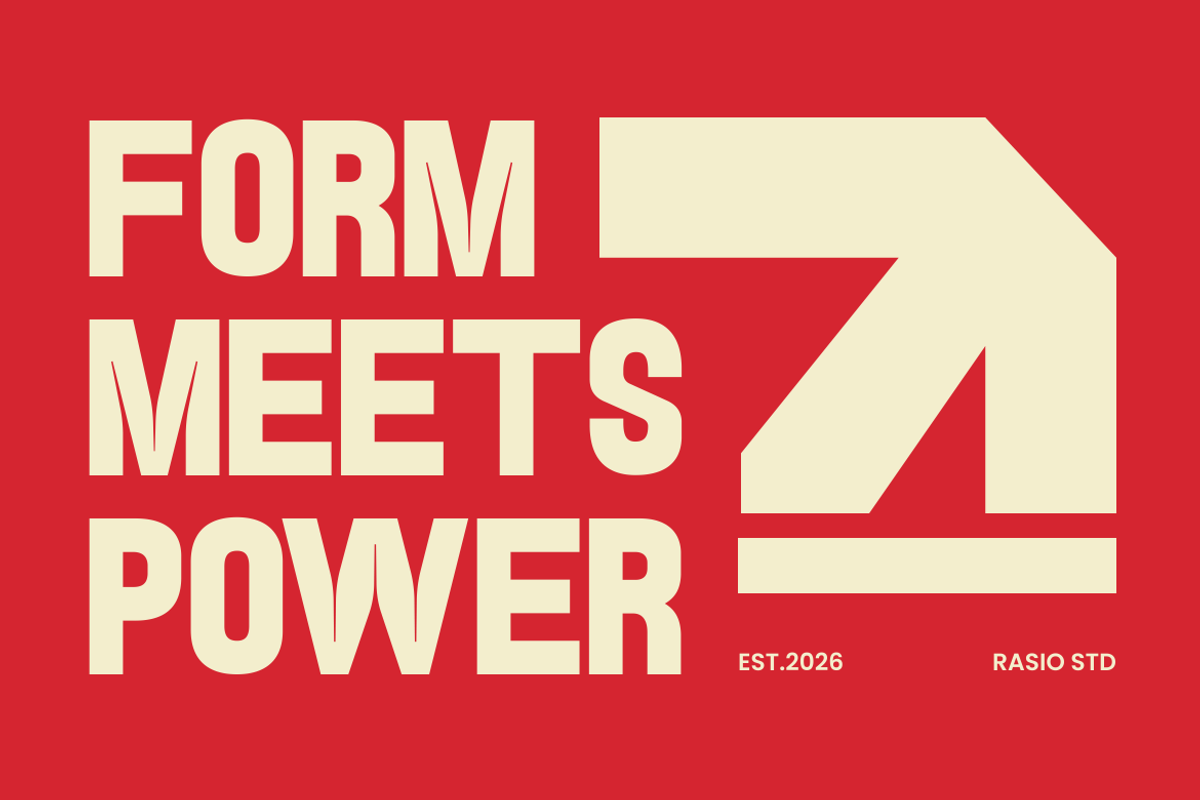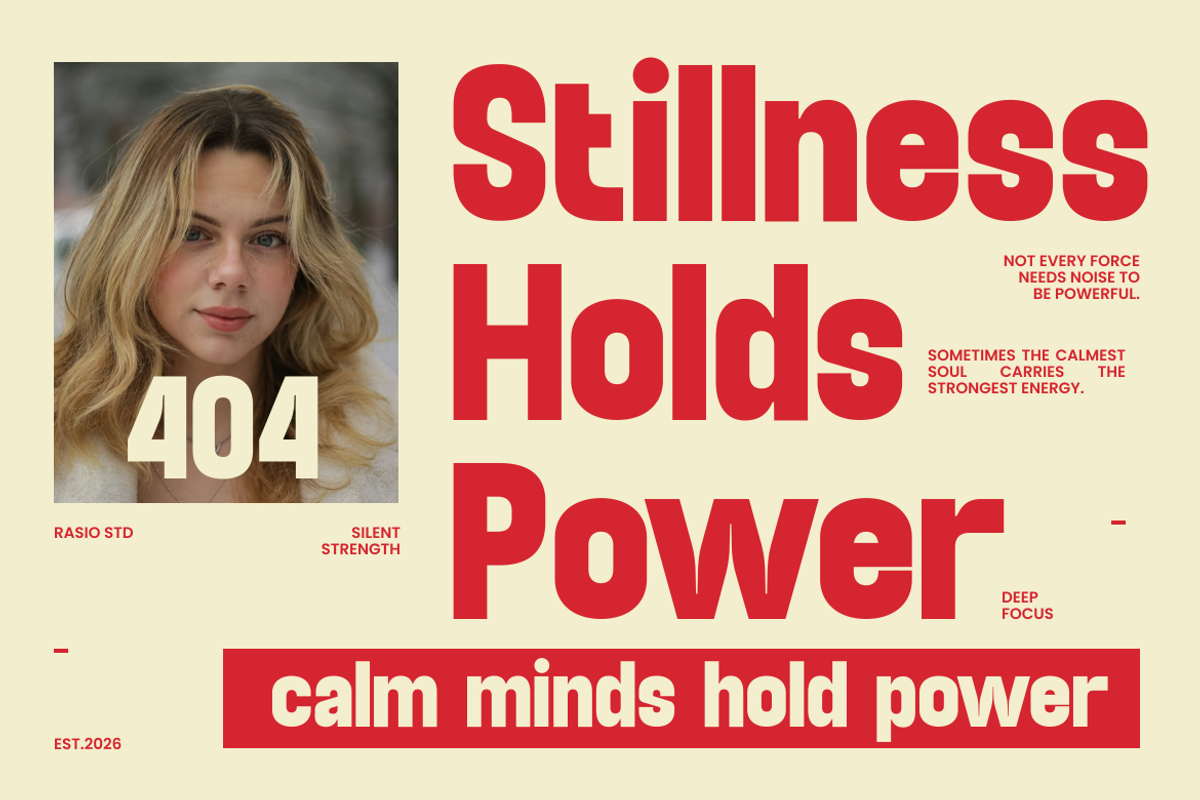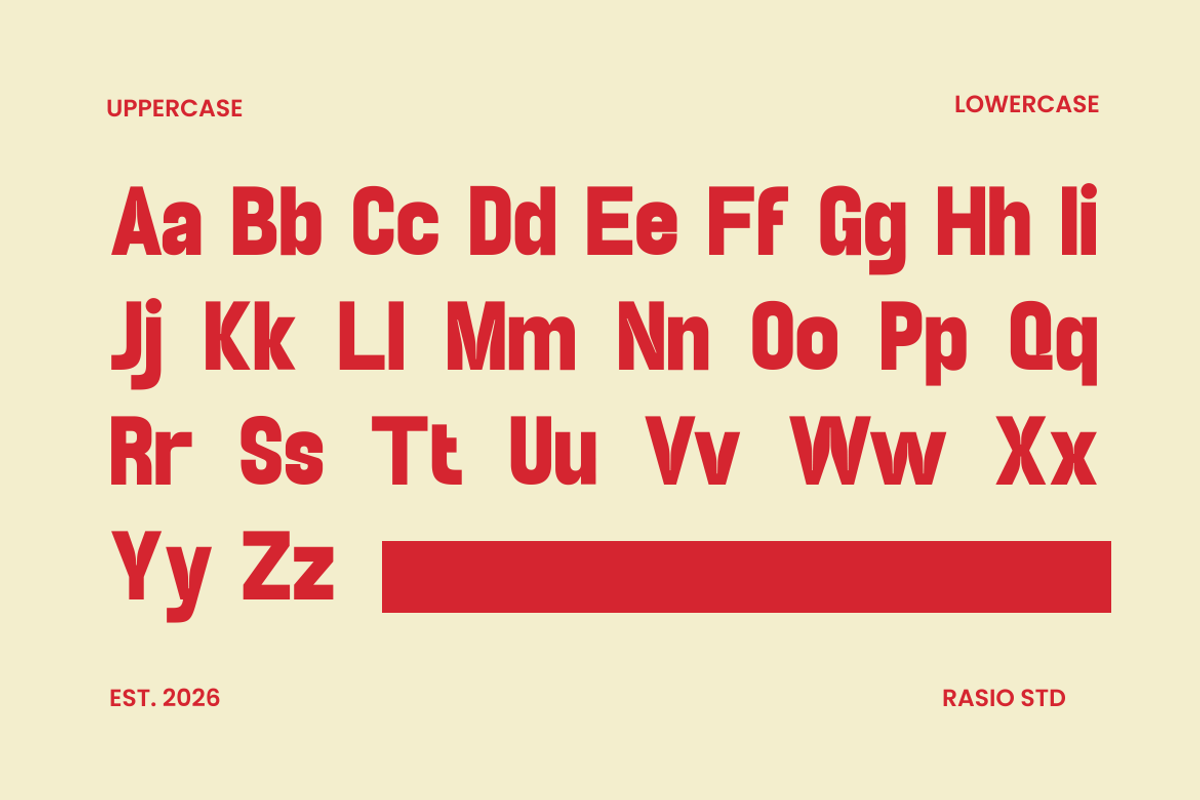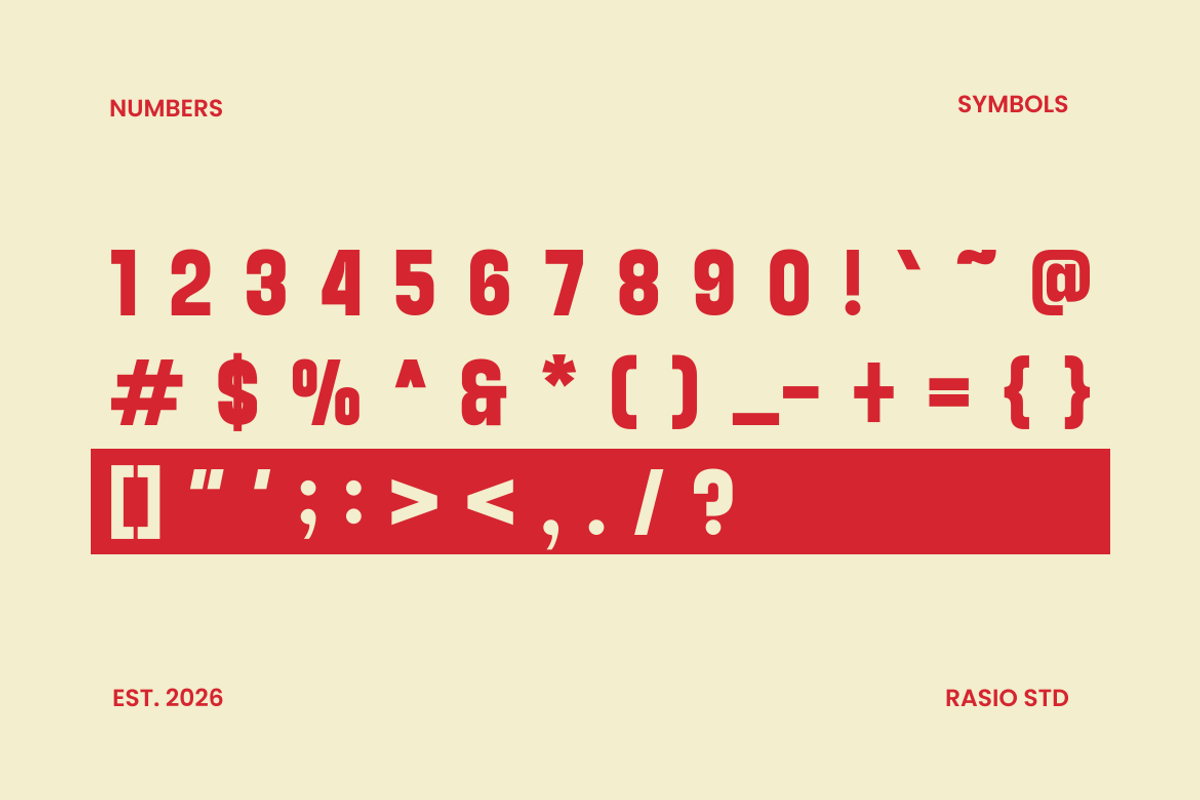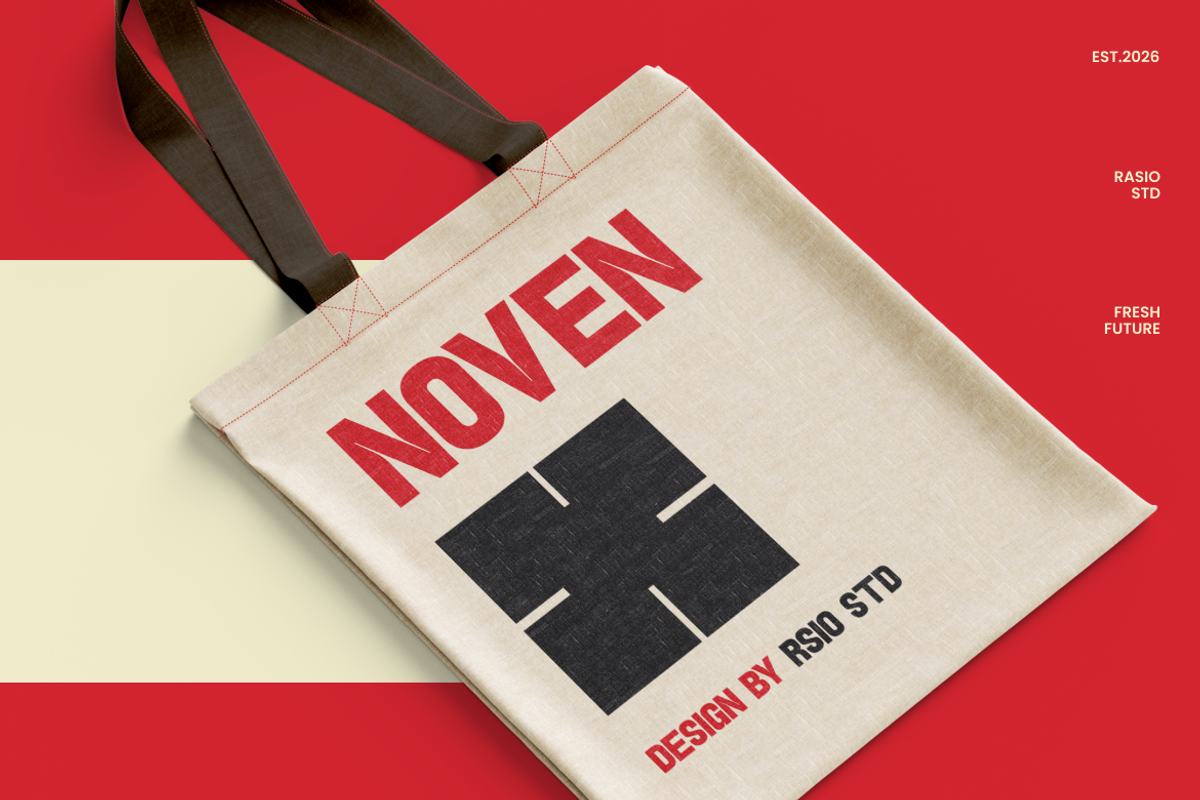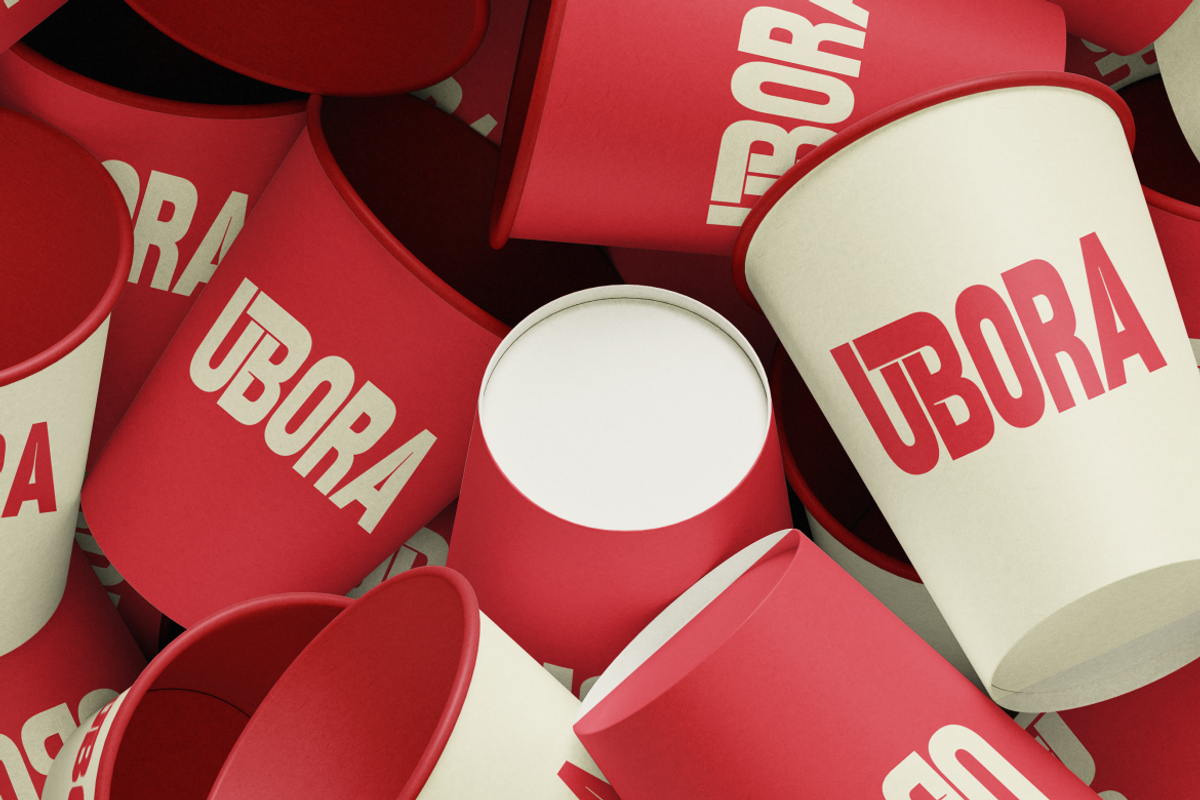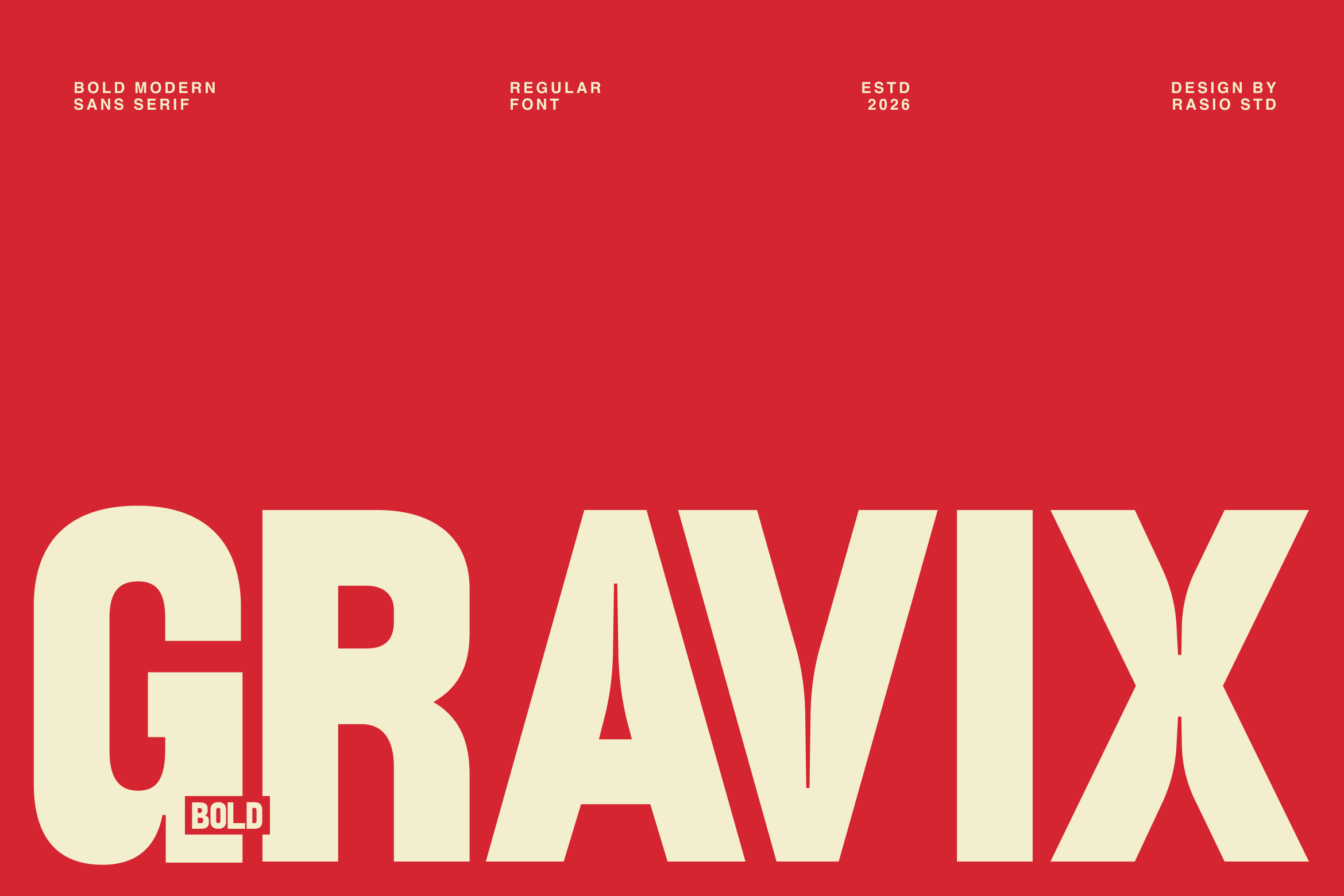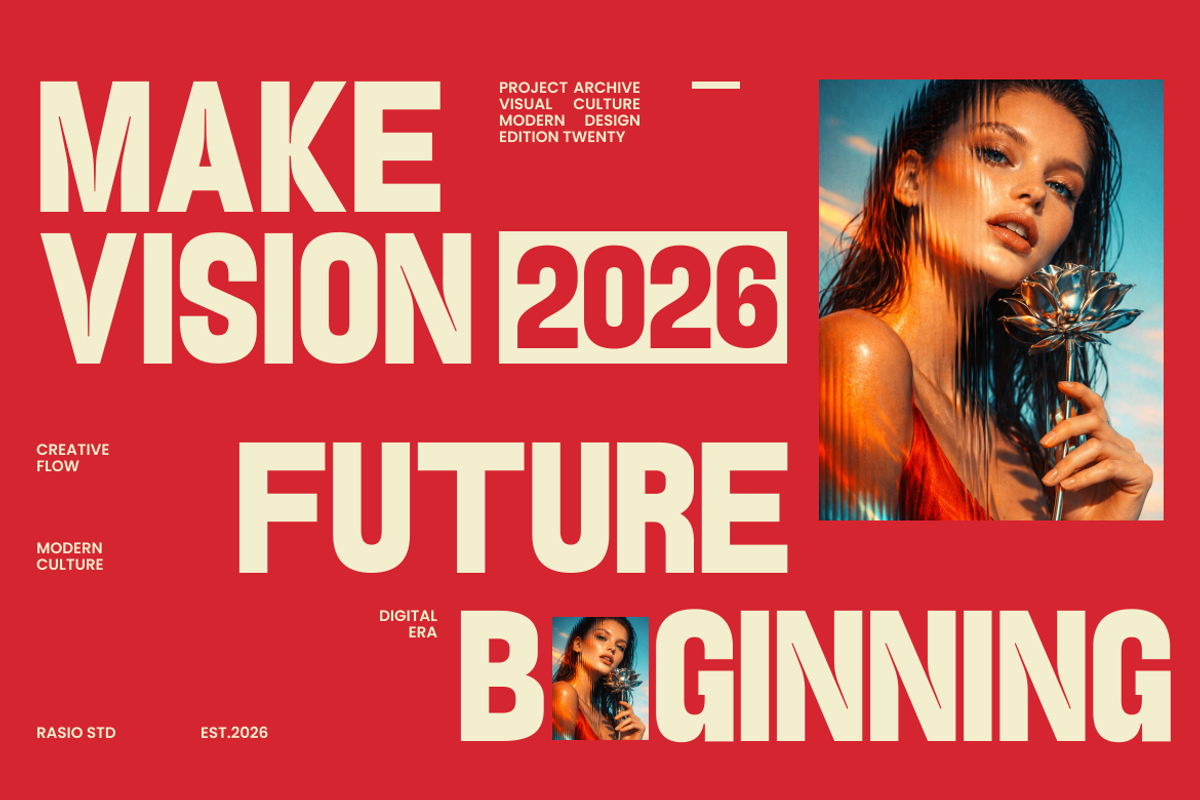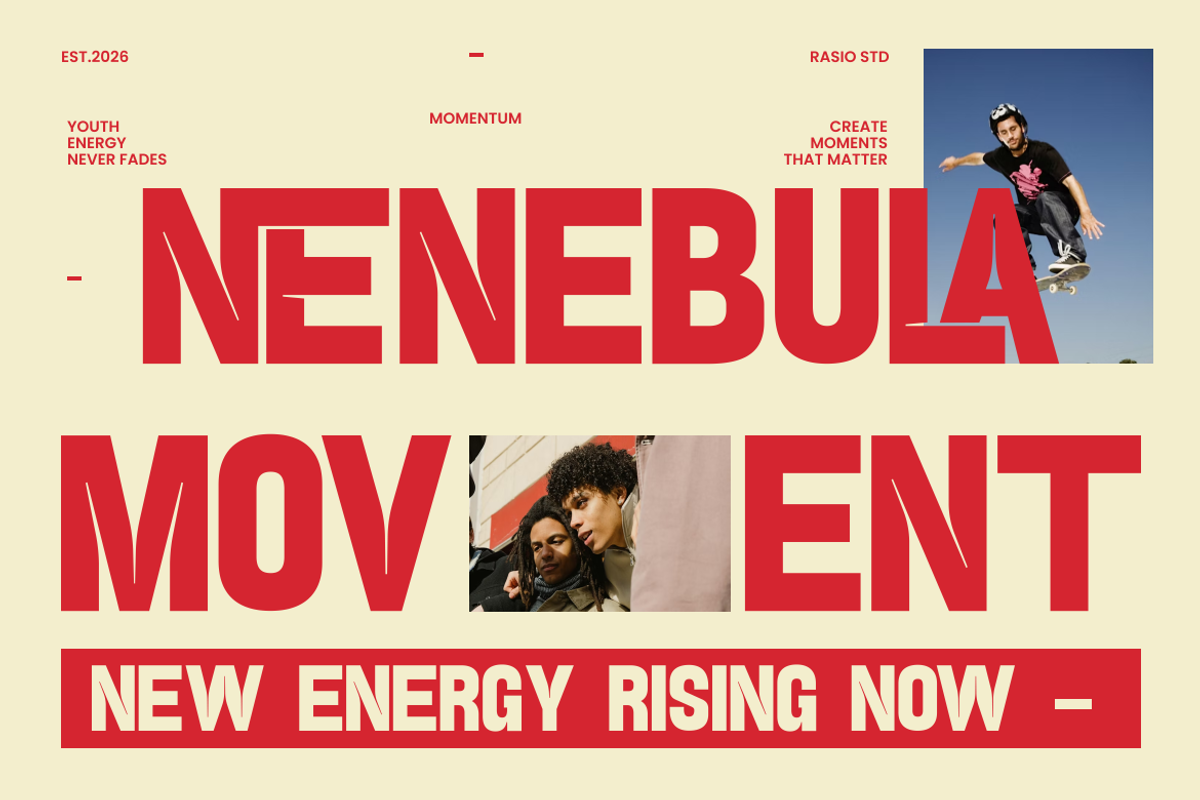
Gravix Bold Modern Sans Serif Font
Gravix is a bold modern sans serif font designed with powerful geometric structures and strong condensed proportions. The letterforms feature thick strokes, sharp angles, and confident shapes that create a striking visual presence in large-scale typography and modern graphic compositions. The font emphasizes clarity and impact through balanced spacing and a consistent vertical structure, making it highly effective for headlines, branding, and display typography. Its solid construction allows text to stand out clearly across posters, digital interfaces, and marketing materials.
The font emphasizes clarity and impact through balanced spacing and a consistent vertical structure, making it highly effective for headlines, branding, and display typography. Its solid construction allows text to stand out clearly across posters, digital interfaces, and marketing materials. Gravix includes uppercase and lowercase characters with carefully refined shapes that maintain readability while delivering a bold graphic personality.
- Bold modern sans serif with strong geometric construction
- Sharp angled cuts and distinctive letterforms for a dynamic look
- Thick strokes designed for powerful display typography
- Condensed proportions that maximize visual impact in headlines
- Carefully balanced spacing for clear readability in bold layouts
- Bold brand identity and impactful logo design
- Sports branding, esports graphics, and athletic campaigns
- Posters, headlines, and promotional advertising materials
- Product packaging and labels with strong visual presence
- Social media graphics, banners, and modern marketing visuals